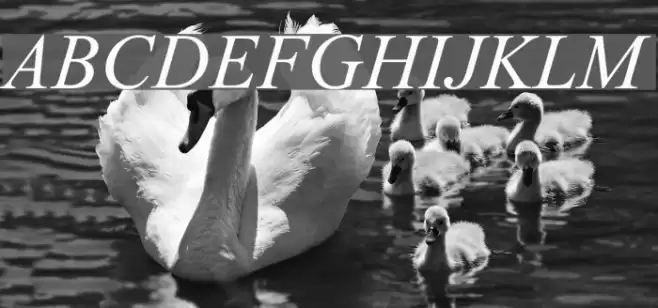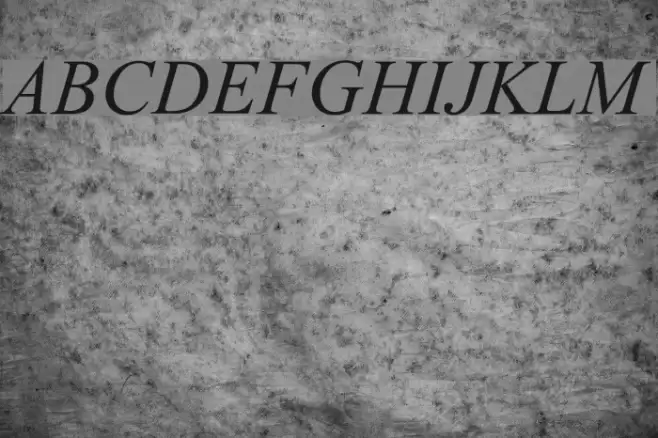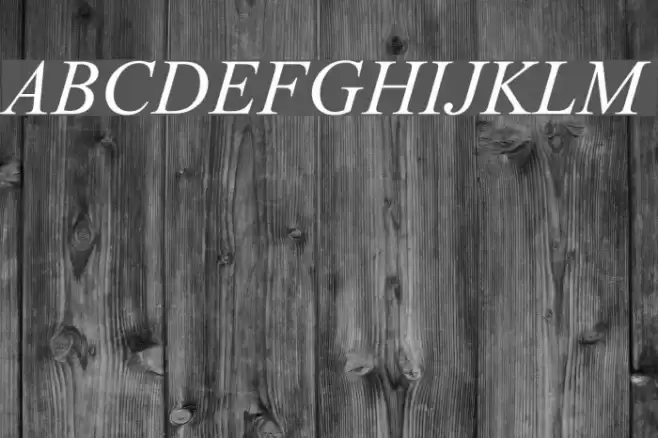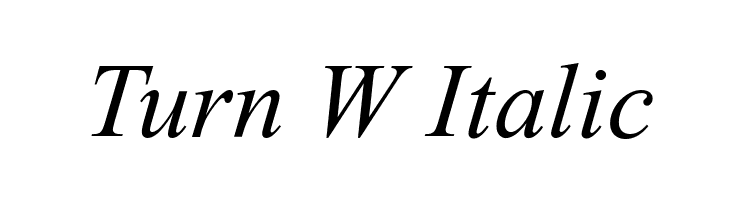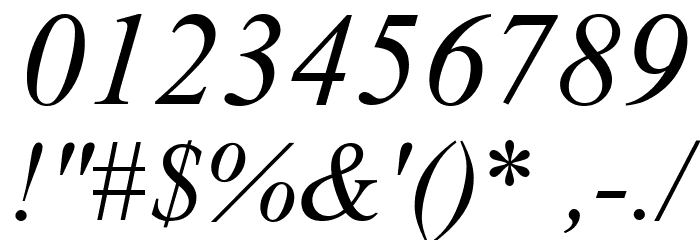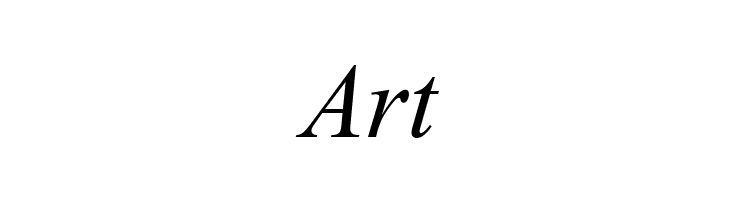
Turn W Italic
This elegant serif font features a classic italic style, characterized by its graceful curves and refined serifs. The letters are slightly slanted, giving a sense of motion and sophistication. The uppercase letters are tall and stately, while the lowercase letters maintain a consistent flow with smooth transitions. The numerals are proportional, aligning well with the overall aesthetic. Special characters are designed with the same attention to detail, ensuring they complement the alphabet seamlessly. This font exudes a timeless elegance, making it suitable for a variety of formal applications.
An elegant serif font with a classic italic style and refined serifs.
- Proposed Projects: Ideal for wedding invitations, formal documents, luxury branding, and editorial design.
- Category: Serif
- Overall Style: Classic